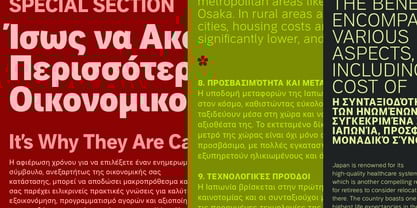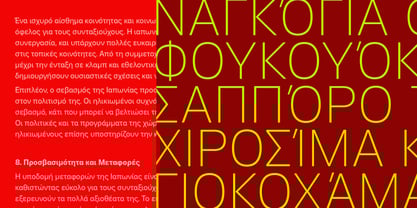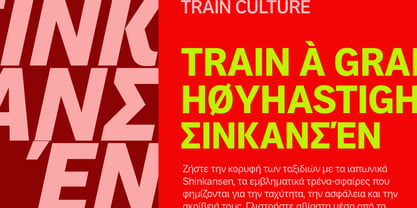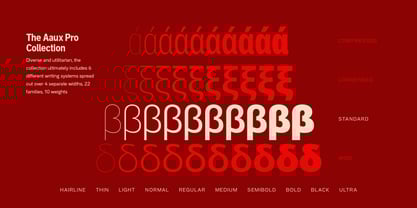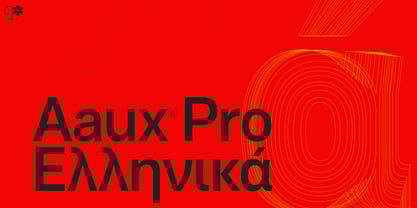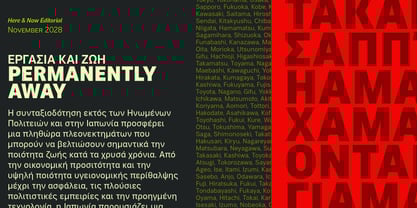
Aaux Pro Greek
by Positype
The Aaux Pro Greek Font Family was designed by Neil Summerour and published by Positype. Aaux Pro Greek contains 20 styles and family package options. More about this family
When the original Aaux was introduced in 2002, the goal was to expand its versatility. Years later, I committed to a complete redesign, redrawing each glyph from scratch for the four main subsets and their italics. This meticulous process resulted in Aaux Pro™, a super family with 378 fonts, including Compressed, Condensed, and Wide subsets, each with corresponding weights for total flexibility. All original weight variants are integrated into the OpenType format, featuring Small Caps, Old Style Figures, tabular figures, numerators and denominators, expanded f-ligatures, and a complete Central European character set.
Aaux Pro™ has been further expanded to support a variety of scripts, including Arabic, Cyrillic, Greek, Korean, and Thai. This extensive script coverage ensures that Aaux Pro™ maintains its versatility and accessibility across different languages and cultural contexts. The typeface combines precision with warmth, balancing assertiveness and friendliness, making it an ideal choice for global brands and multilingual projects.